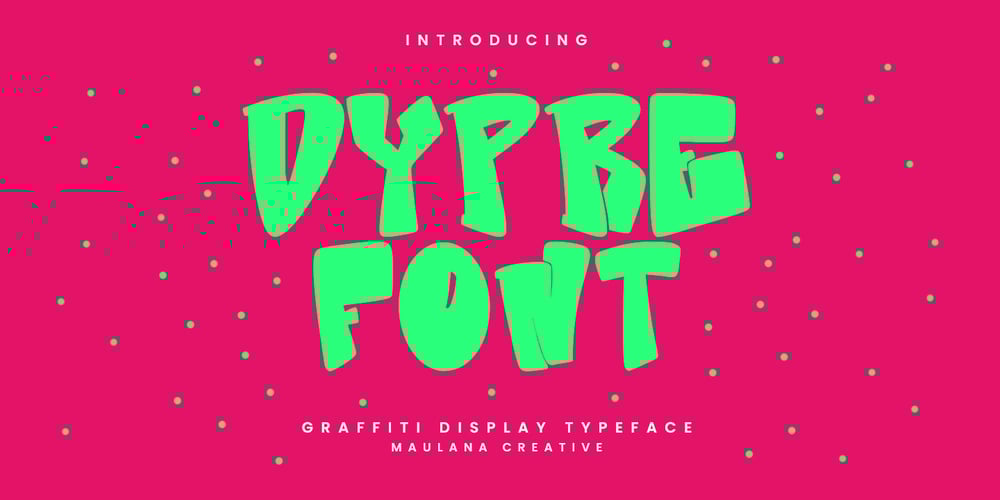
MC Dypre Font Family was designed by Gilang Maulana and published by Maulana Creative. MC Dypre contains 1 styles and family package options. Dypre graffiti display font. With sharp bold stroke, fun character with a bit of ligatures and alternates. To give you an extra creative work. Dypre graffiti display font support multilingual more than 100+ language. This font is good for logo design, Social media, Movie Titles, Books Titles, a short text even a long text letter and good for your secondary text font with script or serif. Make a stunning work with Dypre graffiti display font. Cheers, Maulana Creative